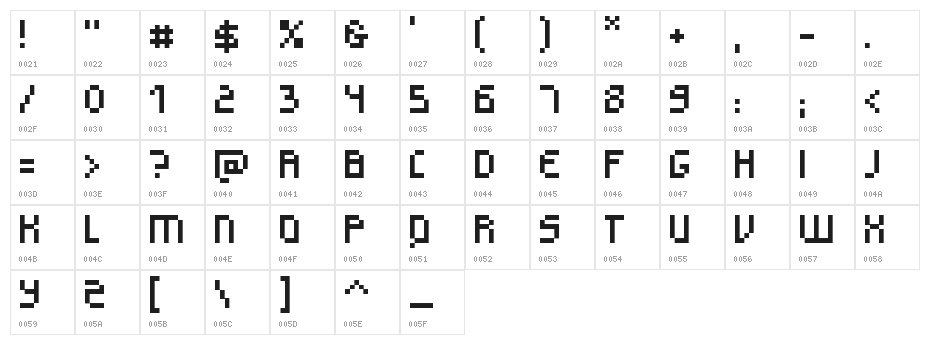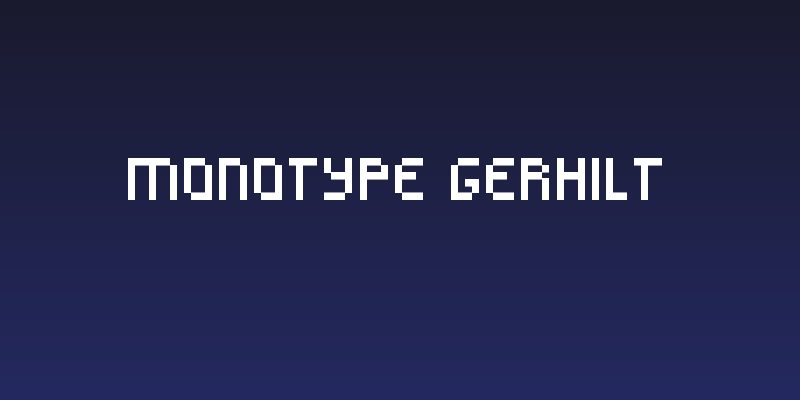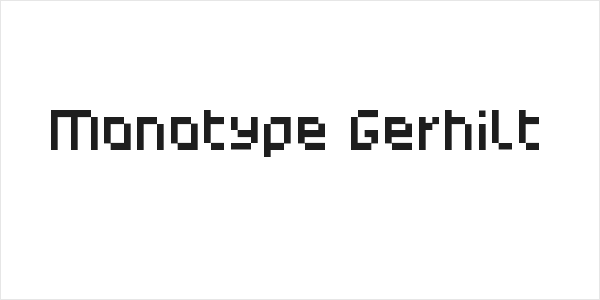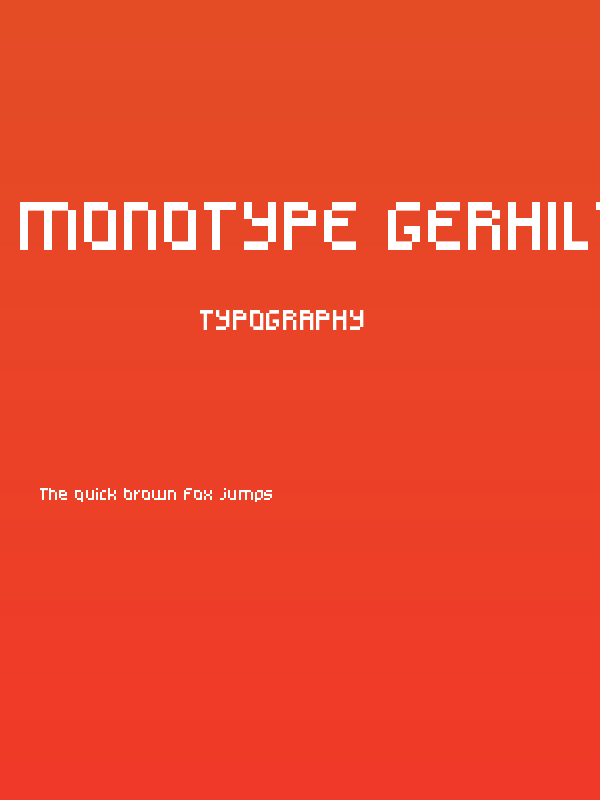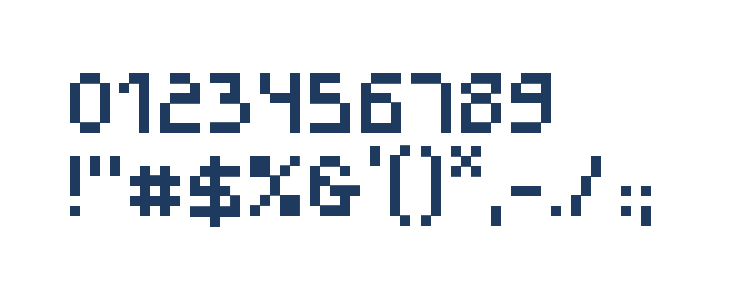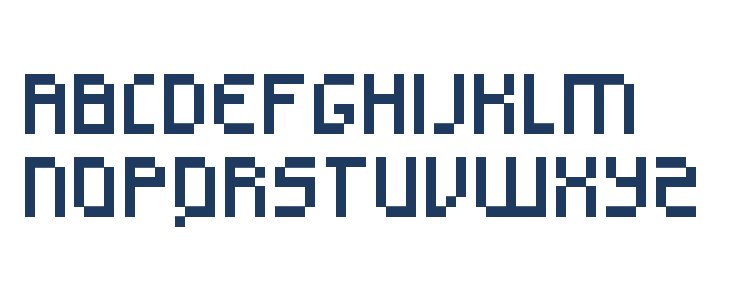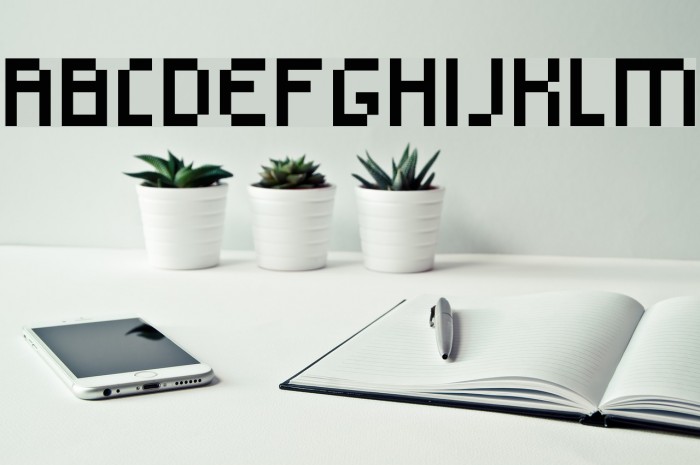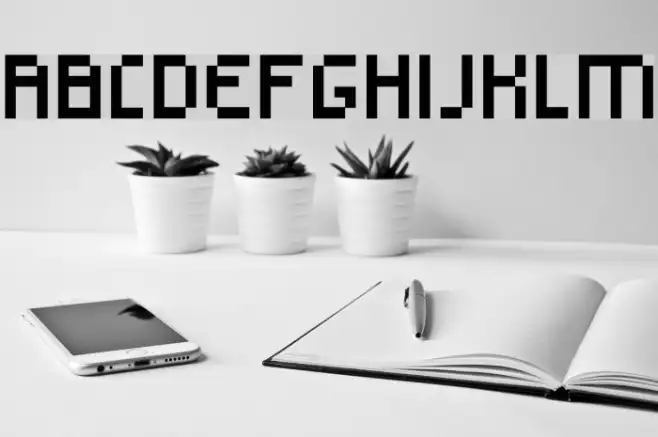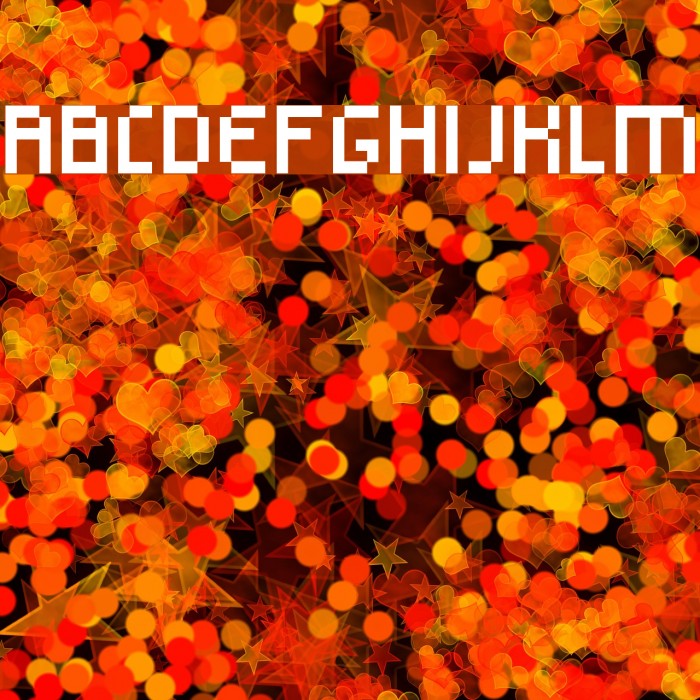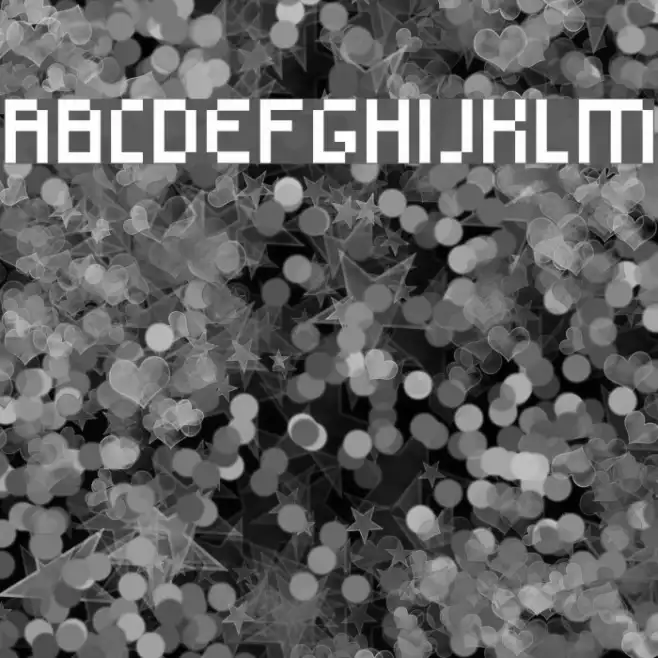
Monotype Gerhilt Font
Monotype Gerhilt Description
This font features a bold, geometric design with a pixelated, block-like appearance. Each character is composed of uniform square shapes, giving it a distinctly digital and retro aesthetic reminiscent of early computer graphics or video game text. The uniformity in stroke width across all characters contributes to a cohesive and structured look. Despite its rigid form, the font maintains readability and clarity, making it suitable for various digital applications. The uppercase and lowercase letters are consistent in style, with the lowercase maintaining the same blocky structure as the uppercase. Numbers and special characters are designed with the same pixelated approach, ensuring a harmonious overall appearance.
| Use Case | Headlines, Logos, Digital interfaces |
| Proposed Projects | Ideal for video game design, digital art projects, retro-themed websites, and tech-related branding. |